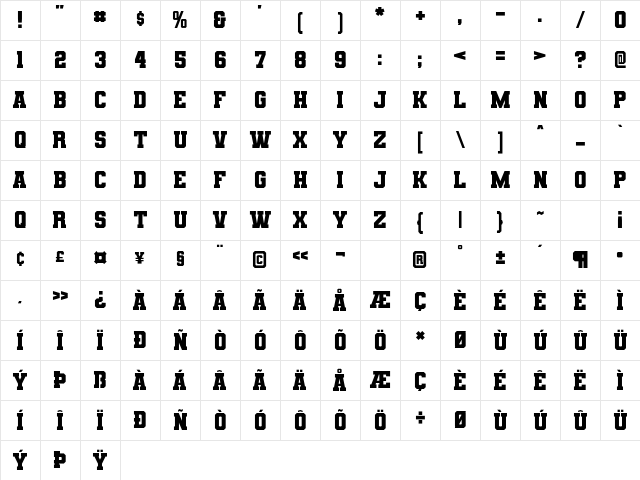
Varsity Team Bold
| Foundry | Don Marciano |
| Designer | Juan Miguel Castillo |
Design Context for Varsity Team Typeface
Varsity Team has the bold swagger of sports branding: strong, assertive letterforms designed to dominate headlines and jerseys alike. Its bold stroke weight gives it real presence on the page.
Built for sports team identities, athletic apparel, event posters, and high-energy promotional material.